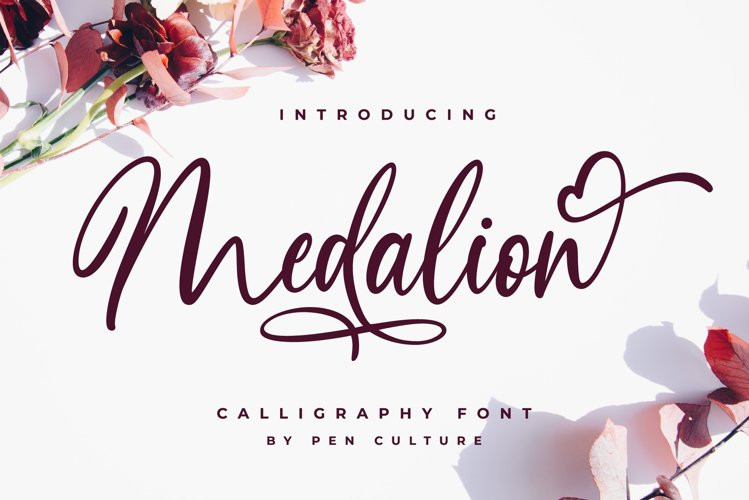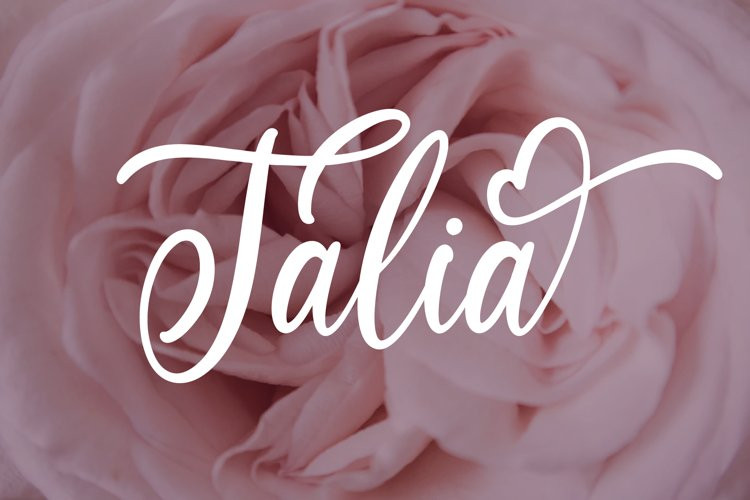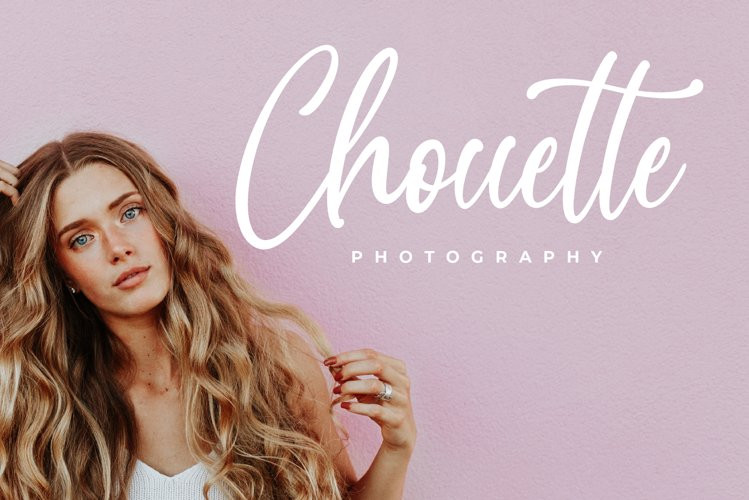
Medallion Font
Introducing the new Medalion. A modern calligraphy font with various interesting features. This font is perfect for for branding, wedding invites and cards, and many more.